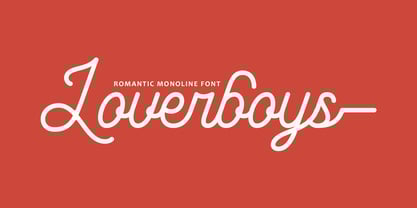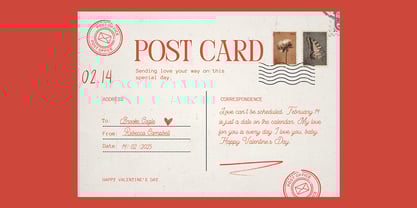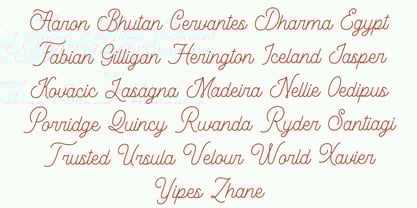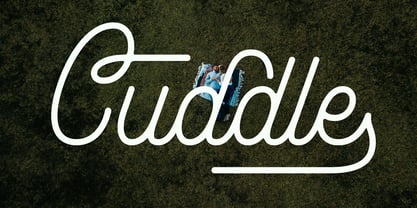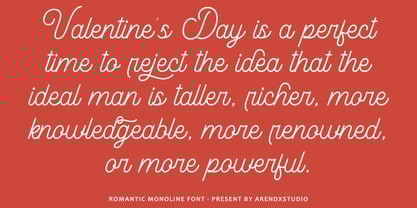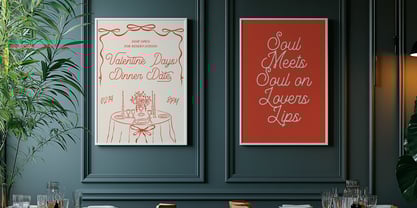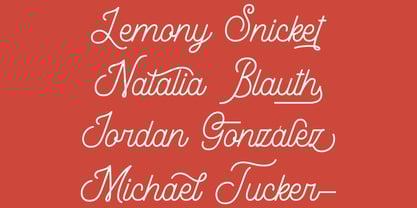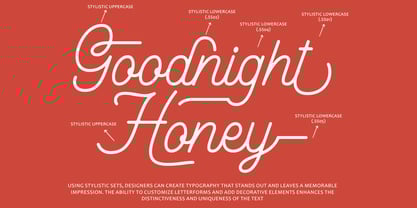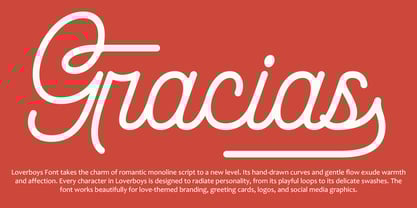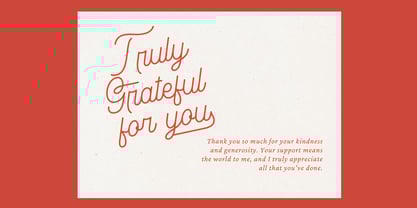
Loverboys
by Arendxstudio
The Loverboys Font Family was designed by Asep Rendi and published by Arendxstudio. Loverboys contains 1 styles. More about this family
Description of Romantic Monoline Script Font and Loverboys Font
A Romantic Monoline Script Font is a timeless typeface style that captures the essence of love, elegance, and simplicity. This font type features fluid, continuous strokes with consistent line thickness, giving it a smooth, harmonious appearance. It’s perfect for projects that aim to evoke a sense of intimacy and sophistication, such as wedding invitations, romantic quotes, branding, or personalized gifts. The minimal and graceful design of monoline script fonts makes them versatile and suitable for both modern and classic aesthetics.
Loverboys Font takes the charm of romantic monoline script to a new level. Its hand-drawn curves and gentle flow exude warmth and affection. Every character in Loverboys is designed to radiate personality, from its playful loops to its delicate swashes. The font works beautifully for love-themed branding, greeting cards, logos, and social media graphics. Its clean and cohesive strokes ensure readability while still maintaining an artistic flair.
Key Features of Loverboys Font:
• Consistent Monoline Weight: Balanced strokes provide a polished and professional look.
• Romantic Appeal: Crafted to convey feelings of love and connection.
• Elegant Flourishes: Optional swashes and alternates add a touch of creativity and drama.
• Versatile Usage: Ideal for branding, invitations, quotes, and more.
With Loverboys Font, designers can effortlessly add a romantic and personal touch to their projects, making it a must-have in any creative toolkit.
Designers: Asep Rendi
Foundry: Arendxstudio